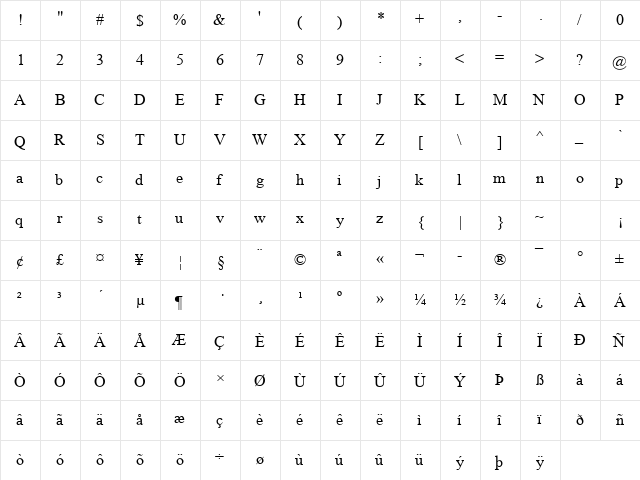
Microsoft Himalaya Regular
| Foundry | Microsoft Corporation |
| Designer | Founder, Beijing China |
Design Context for Microsoft Himalaya Typeface
Microsoft Himalaya is a composed and adaptable typeface that performs quietly and consistently across a wide range of design contexts.
Pro Tip: Use Microsoft Himalaya in both headline and body roles to test its range before committing to a single application.